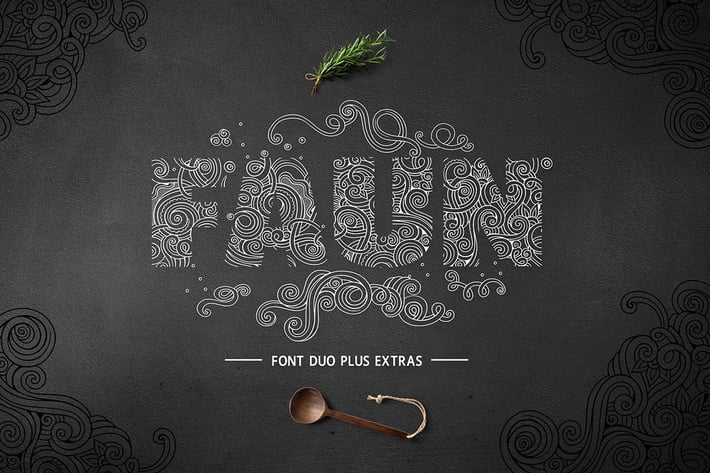
Faun Font Duo
Introducing Faun a decorative display font.
This font duo includes a decorative typeface, a sans serif type that perfectly pair and decorative extras. You can use this font to create monograms, branding, t-shirt designs and more.